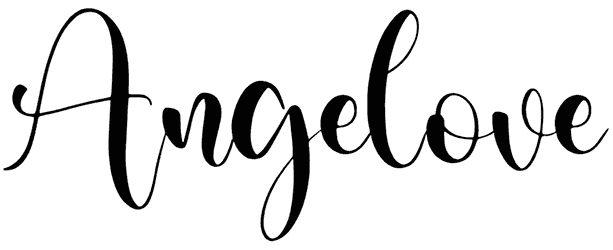
Angelove Font
Are you looking for a particular font for your wedding invitation, or do you want to decorate your album covers artistically? Angelove is a recommended RB option with a clear advantage compared to other options.
This love font has magnificent letters with natural twists that can convey your message in a beautiful and stylish format. So if you want to attract the audience’s attention with a neat font, star this script font in your collection.